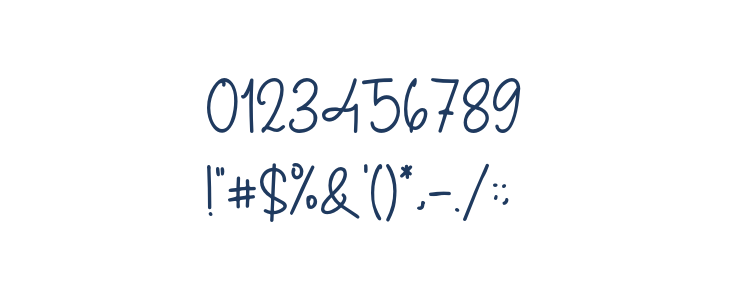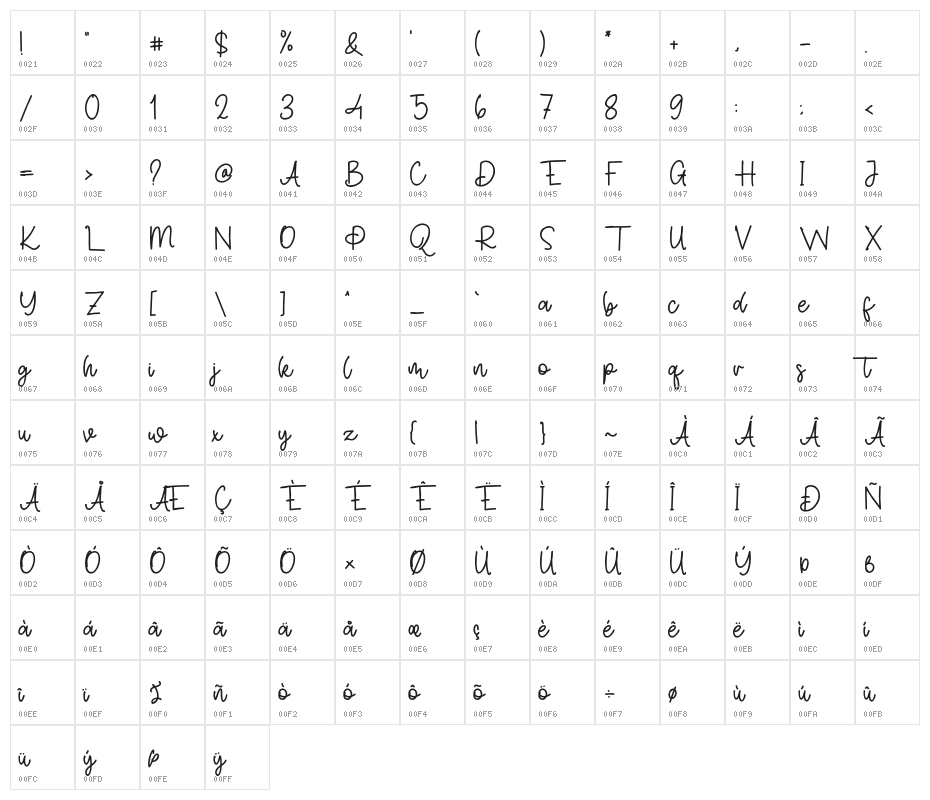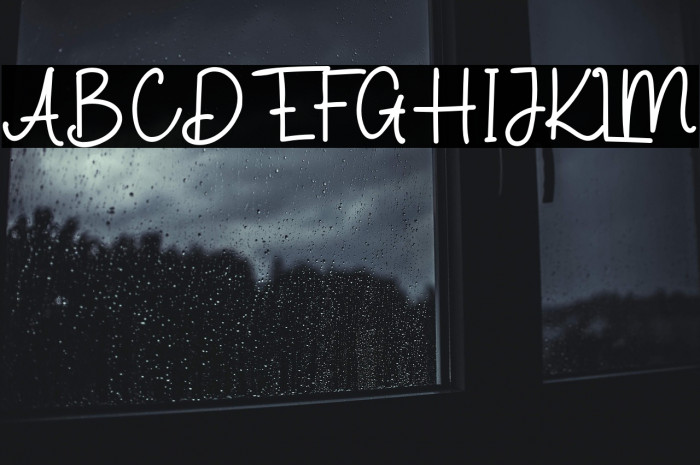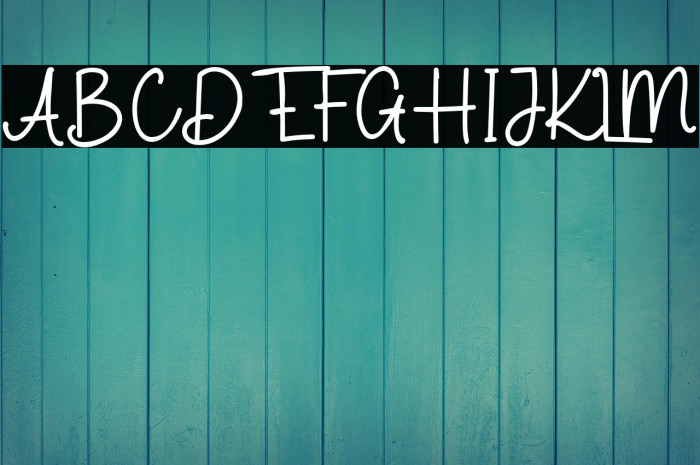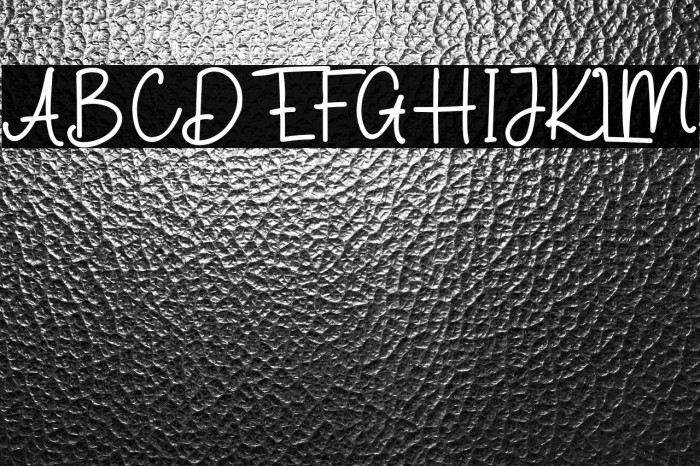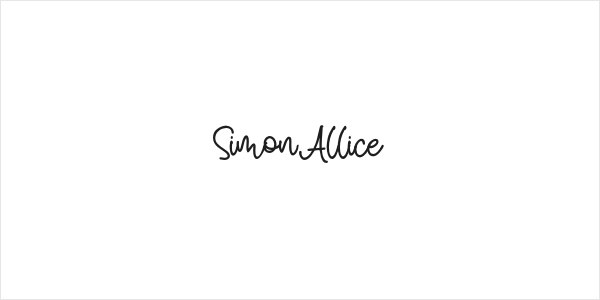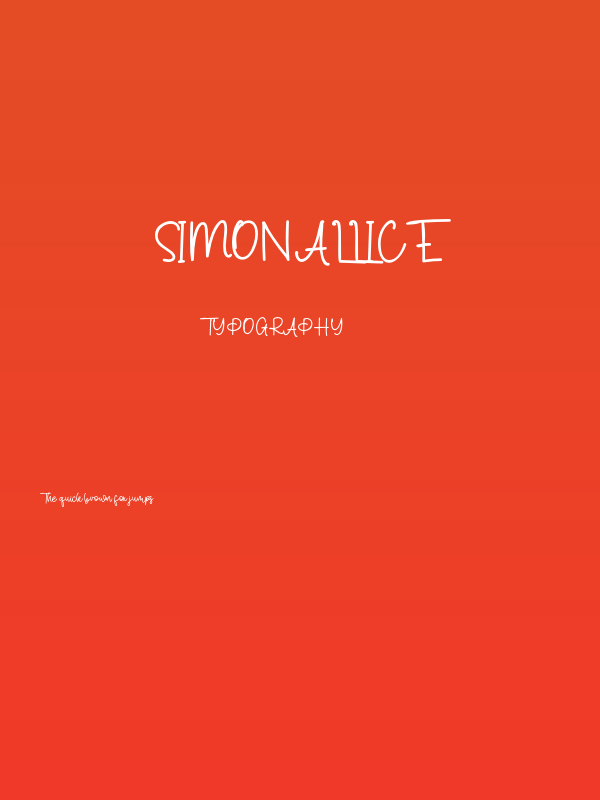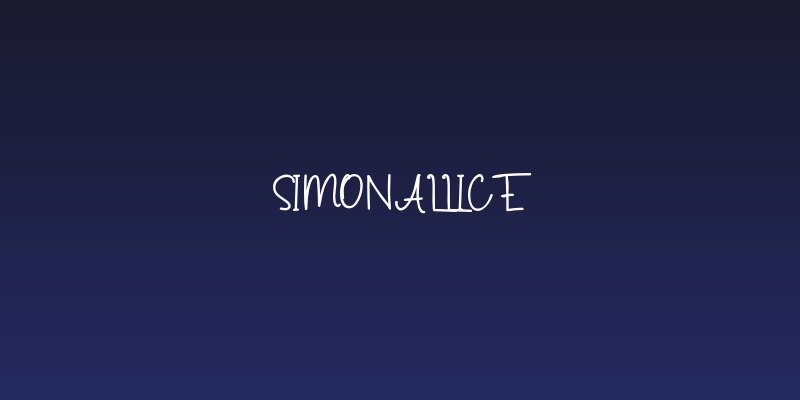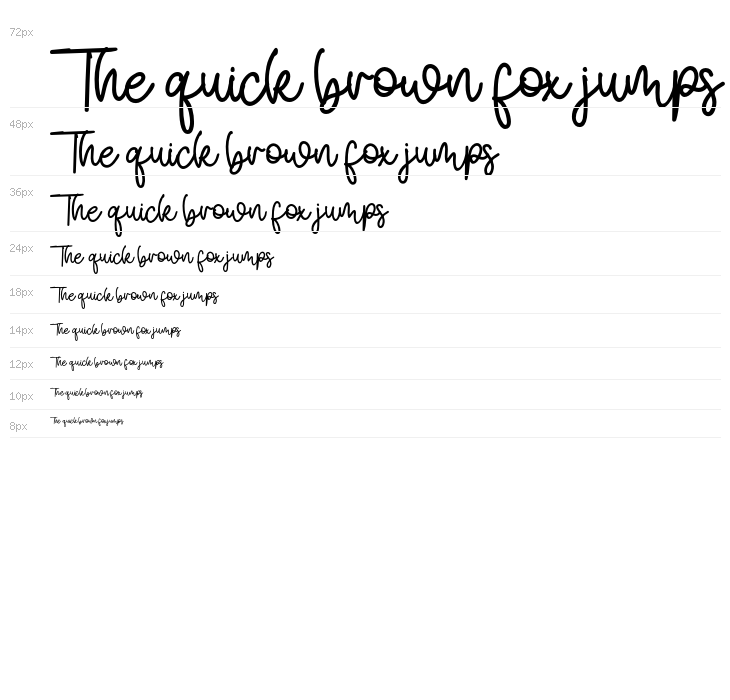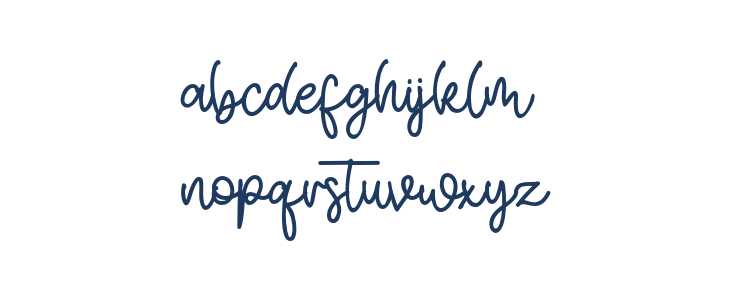
SimonAllice Font
SimonAllice Description
This font features a playful and casual handwritten style, characterized by its smooth, flowing lines and slightly irregular shapes. The uppercase letters are bold and prominent, while the lowercase letters maintain a consistent, rounded form. The numerals are clear and easy to read, matching the overall whimsical aesthetic. Special characters are included, maintaining the same playful style. This font exudes a friendly and approachable vibe, making it suitable for informal and creative projects.
| Overall Style | Casual |
| Use Case | Logos, Headlines, Informal Text |
| Proposed Projects | Ideal for greeting cards, children's books, playful branding, and social media graphics. |